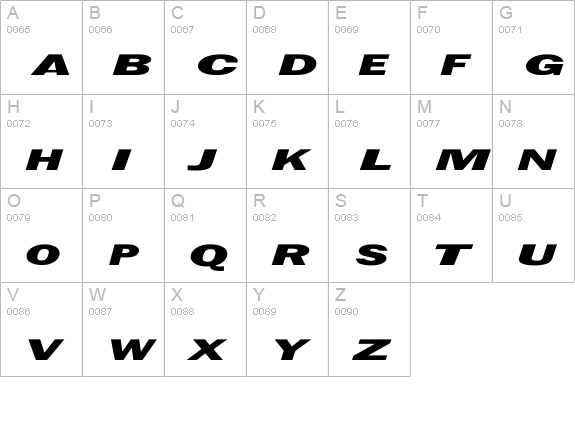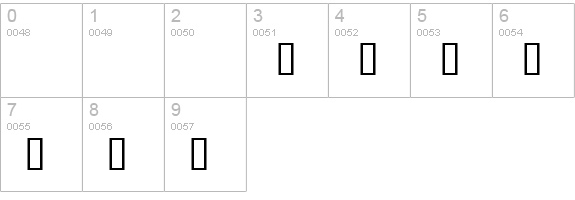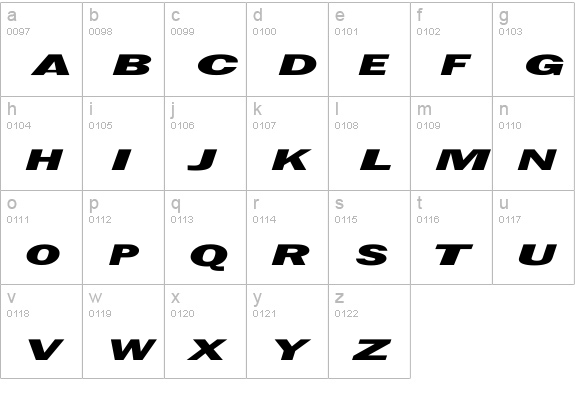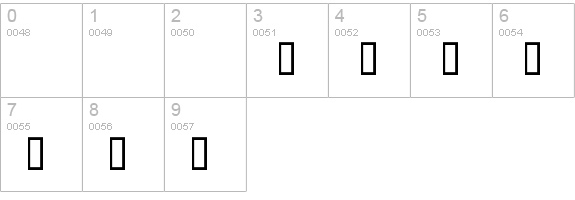
Espionage Font Details
Introducing Espionage font, a sleek and sophisticated typeface that adds a touch of mystery and intrigue to any design project. With its sharp, angular lines and modern aesthetic, Espionage is the perfect choice for conveying a sense of elegance and sophistication. This versatile font is ideal for a wide range of applications, from branding and marketing materials to editorial design and more. What's even better is that Espionage font is available for free download at FontsMarket.com. So whether you're working on a professional project or simply looking to elevate your personal creations, you can easily access this stylish font and take your designs to the next level. Don't miss out on this opportunity to add a touch of espionage-inspired flair to your work – download Espionage font today!